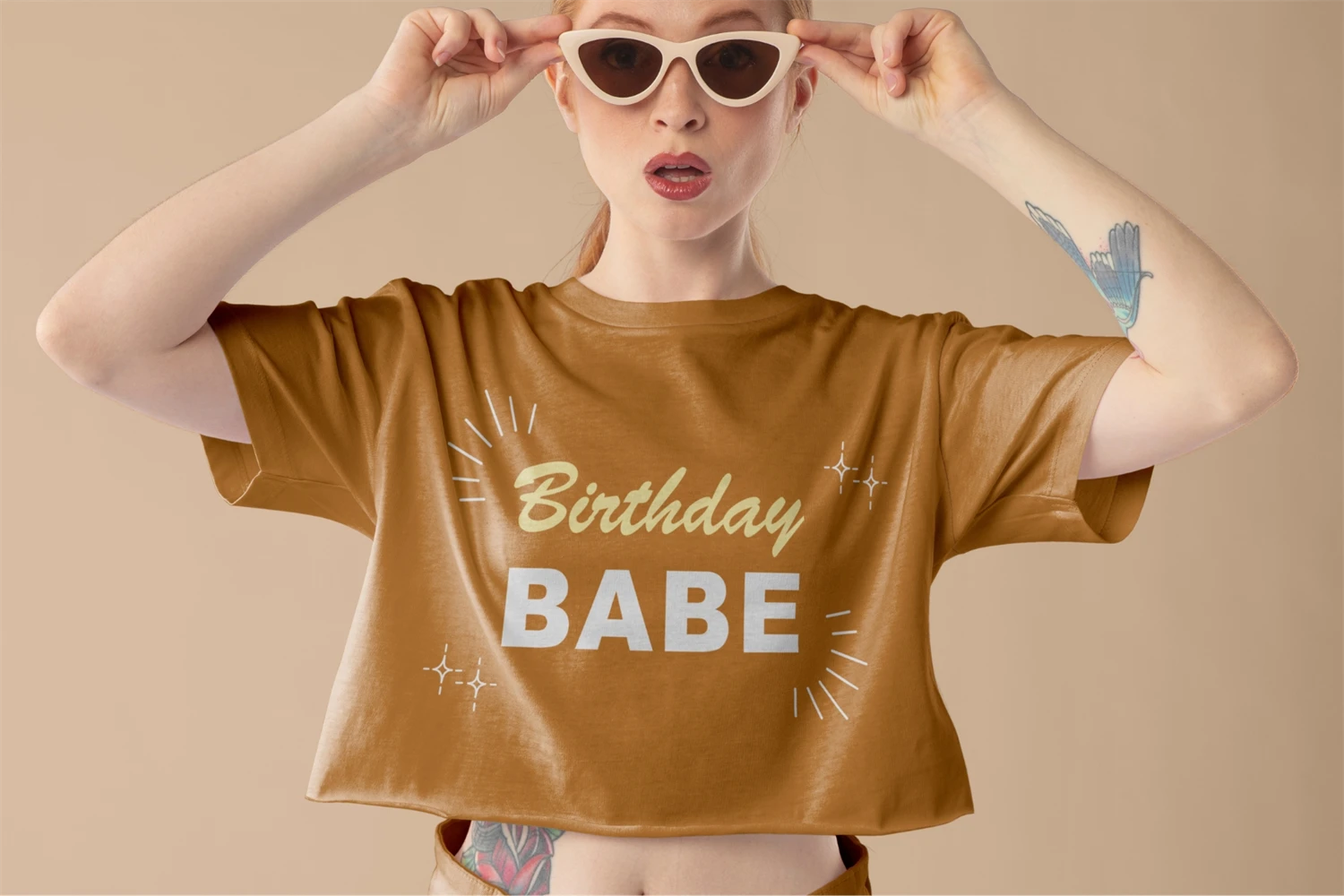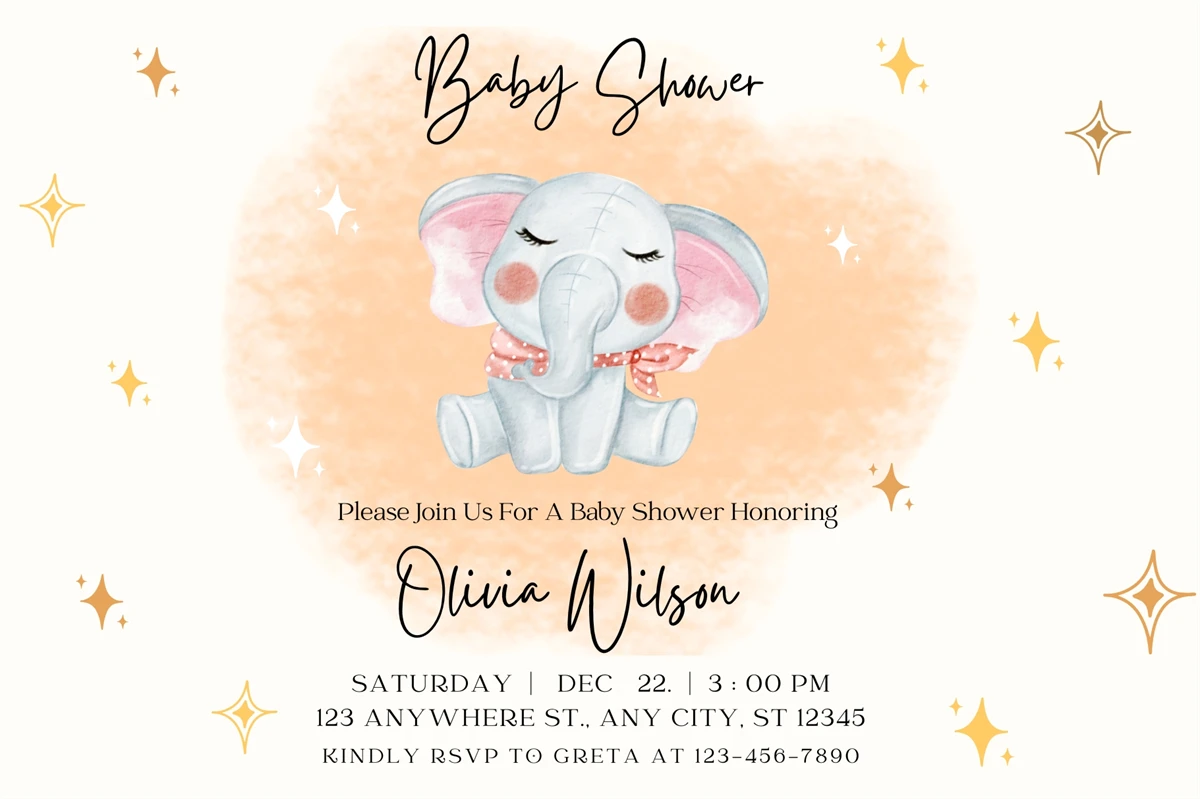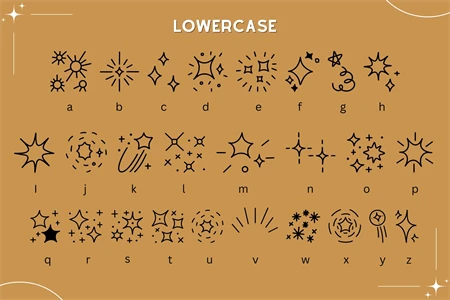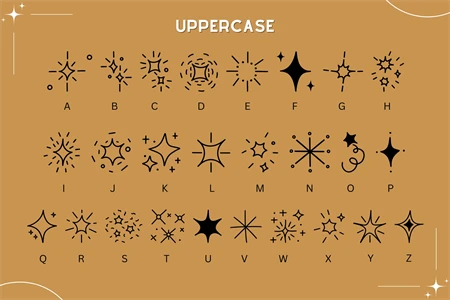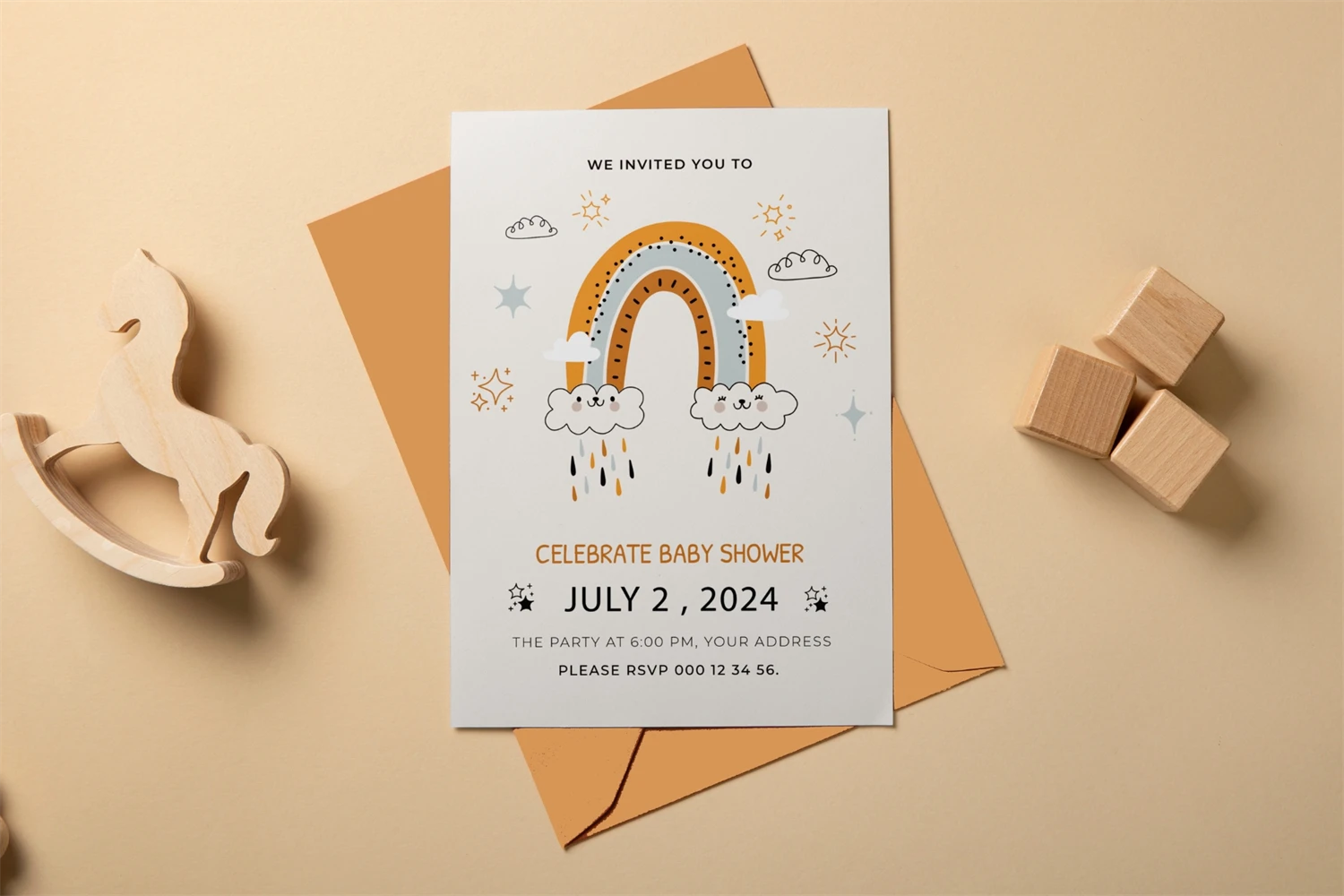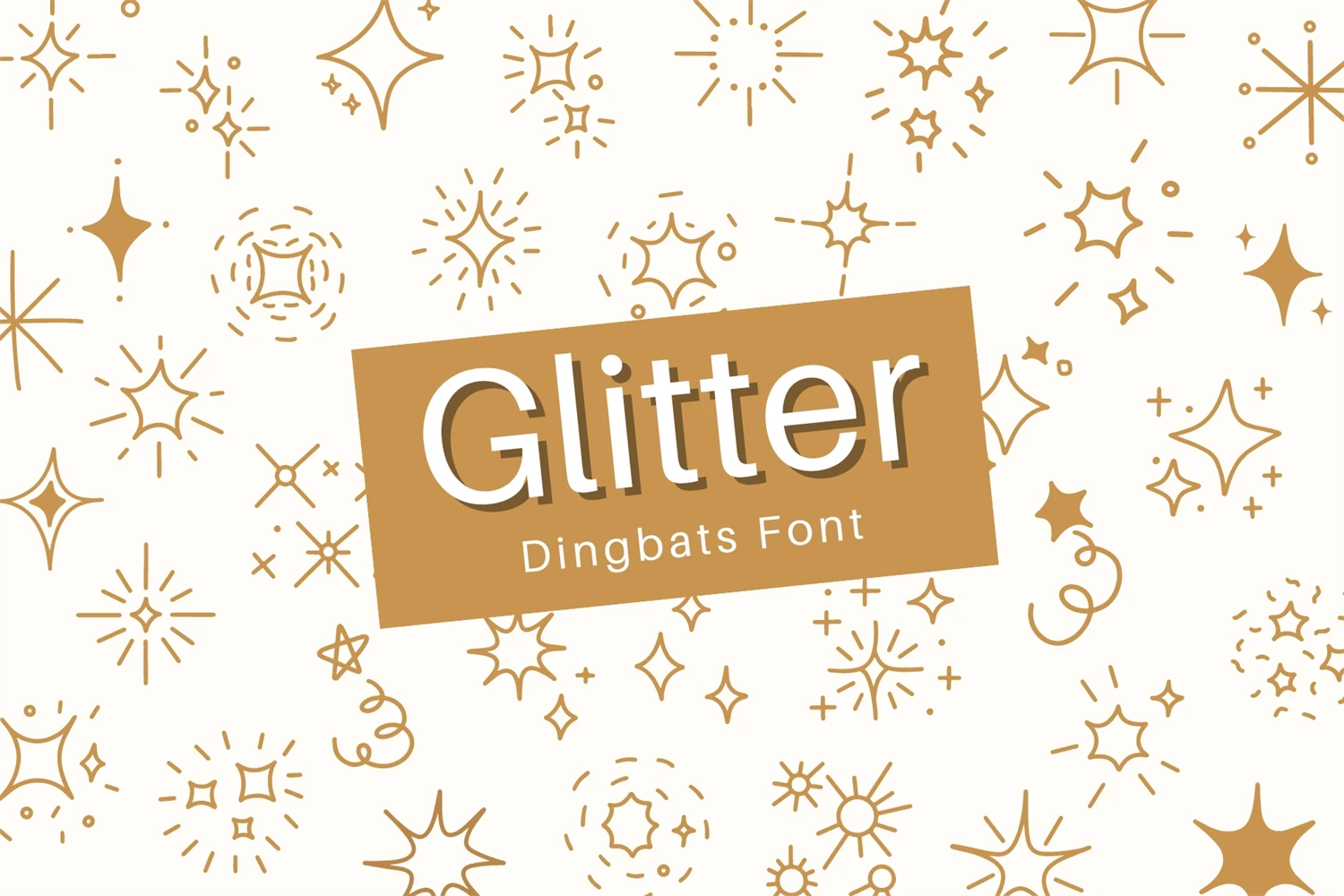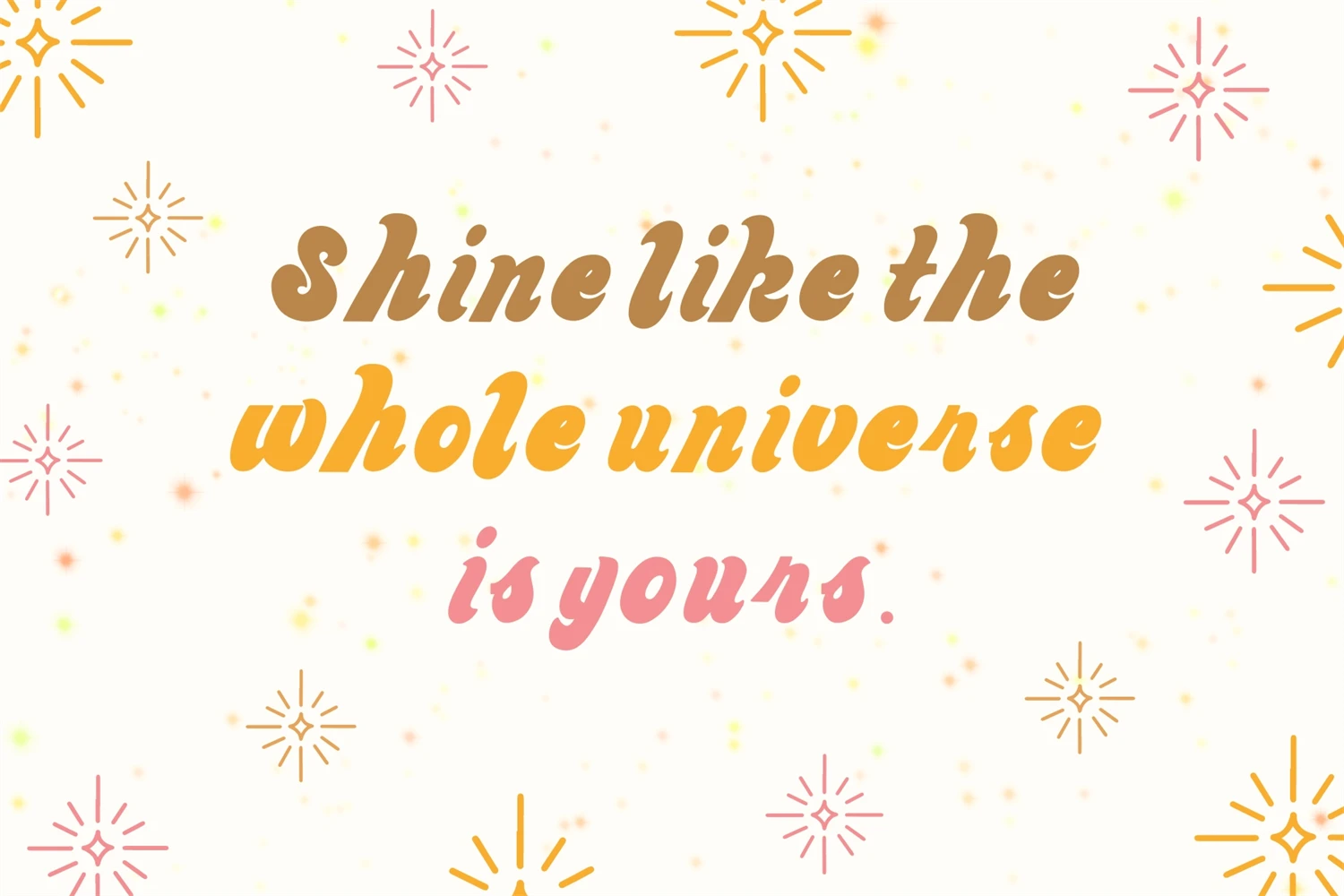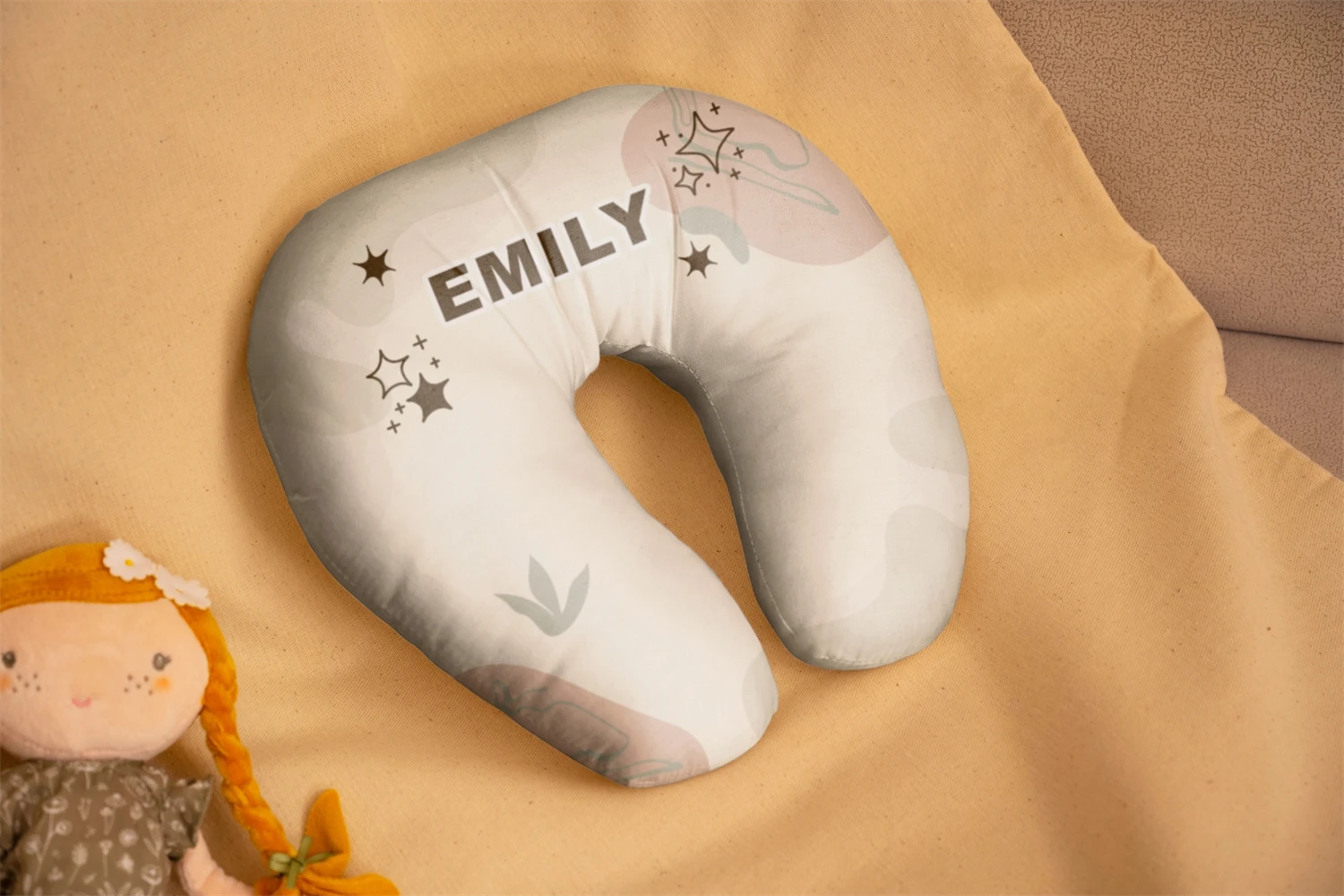
Glitter is an attractive and lovely dingbats typeface featuring cute glitters that are perfect for adding some magic to your designs. Its playful and charming appearance is ideal for invitations, greeting cards, and anything that requires a touch of whimsy. Get ready to make your designs shine with this glitter-inspired font !